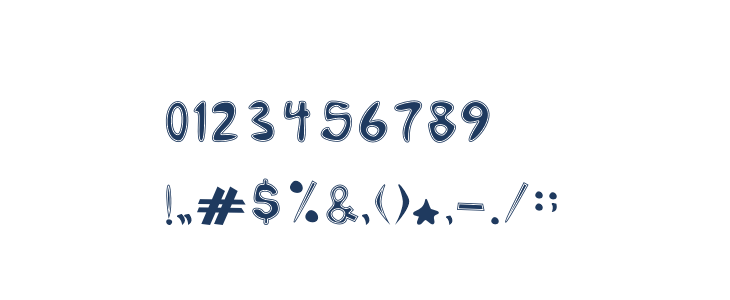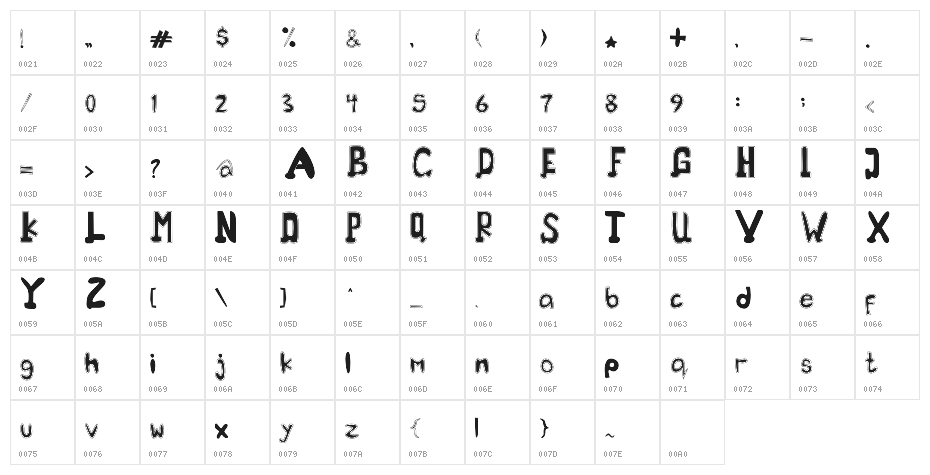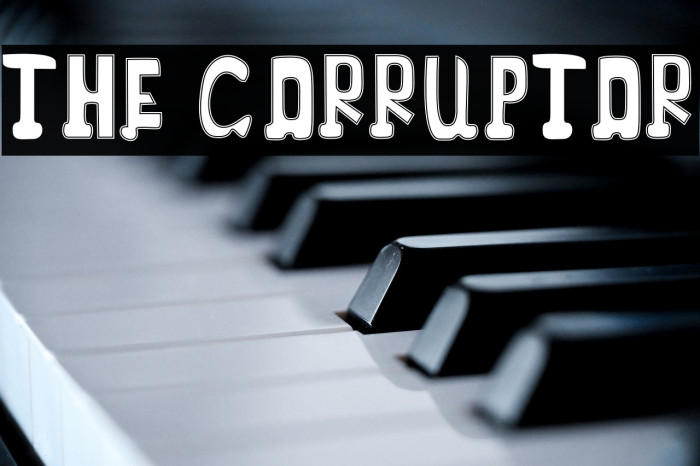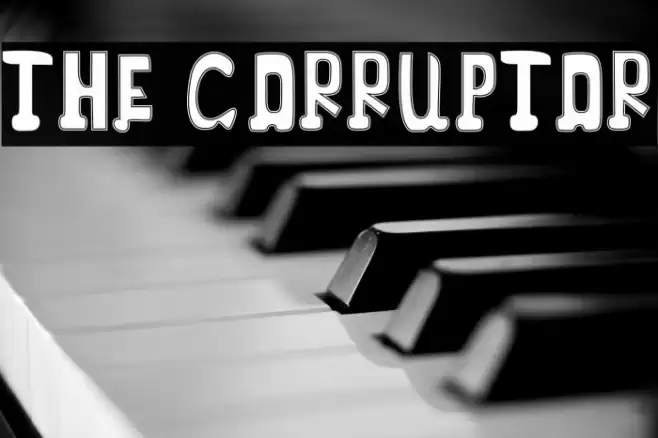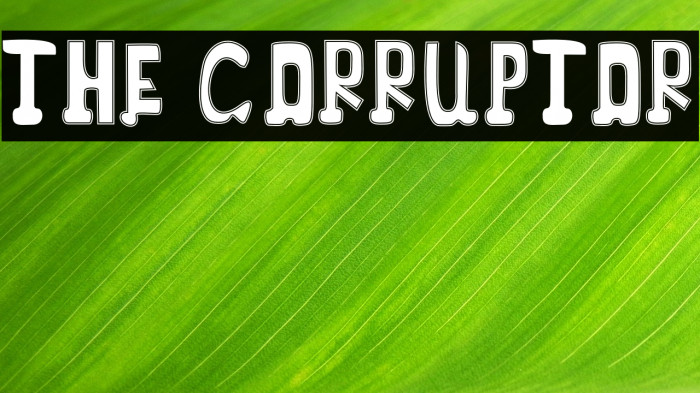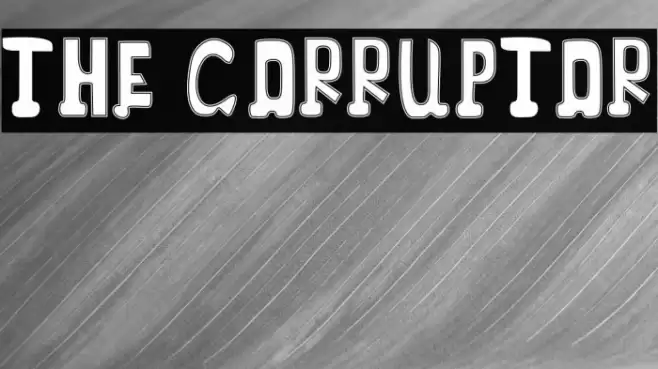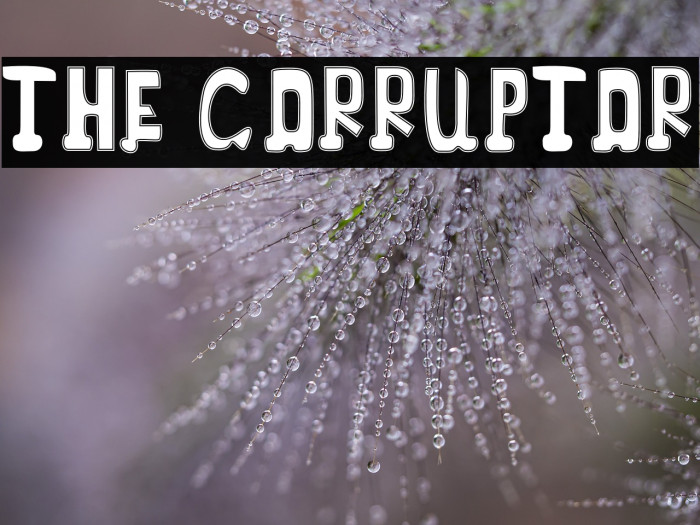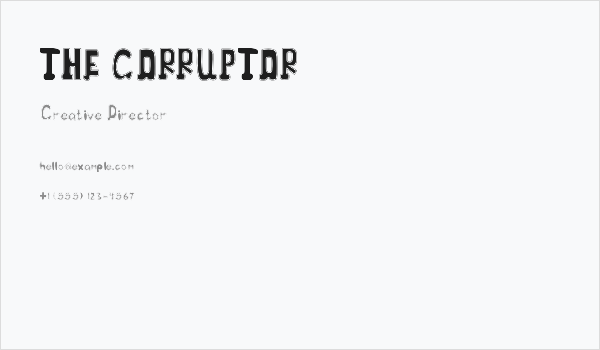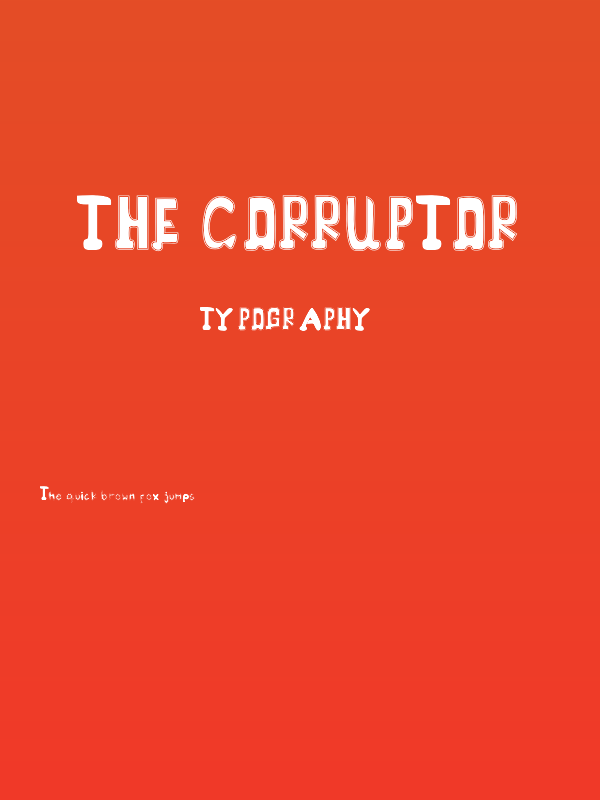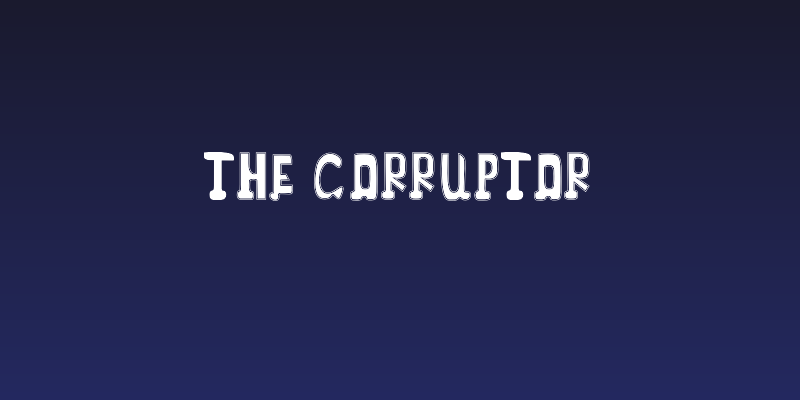
THE CORRUPTOR Font
THE CORRUPTOR Description
This font features a playful and bold style with a unique, quirky design. The characters have a cartoonish appearance, with exaggerated curves and varying thicknesses that create a dynamic and lively look. The uppercase letters are bold and impactful, while the lowercase letters maintain a whimsical charm. Numbers and special characters follow the same playful theme, making this font suitable for creative and informal projects. The font's distinctiveness is enhanced by its irregular shapes and bold outlines, giving it a standout presence.
| Overall Style | Playful, Quirky, Cartoonish |
| Proposed Projects | Ideal for children's books, comic strips, playful branding, and creative posters. |